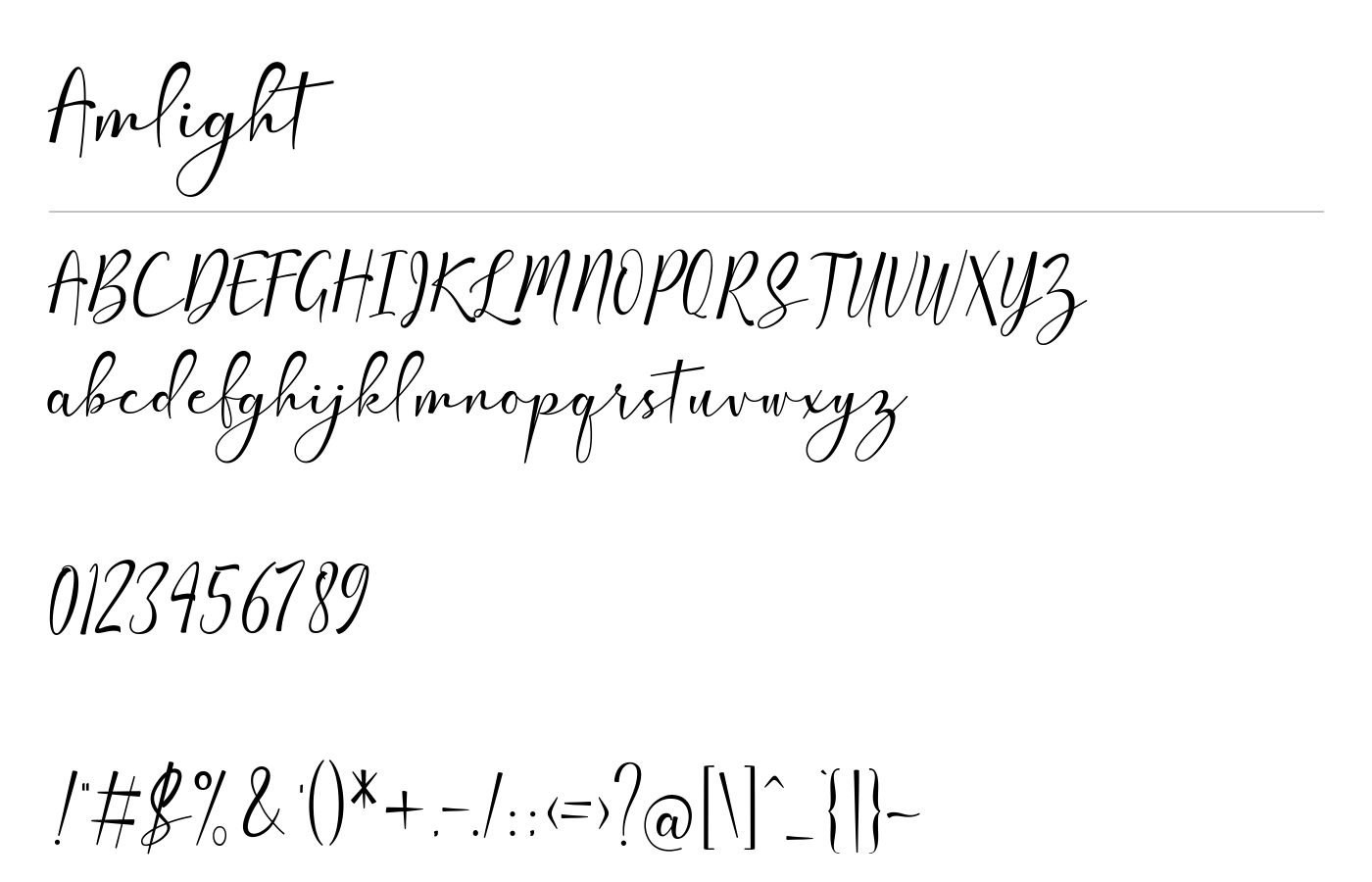
Amlight is an elegant and modern script font with a light, airy feel and smooth, flowing strokes that convey a personal and handwritten touch. Its slender, slightly condensed letterforms with distinctive swashes and loops make it ideal for stylish branding, invitations, and creative projects that require a sophisticated yet approachable look. This font works beautifully in both display and headline use where a refined, delicate personality is desired.
Amlight Font
About Amlight Font
| Font family | Amlight Font |